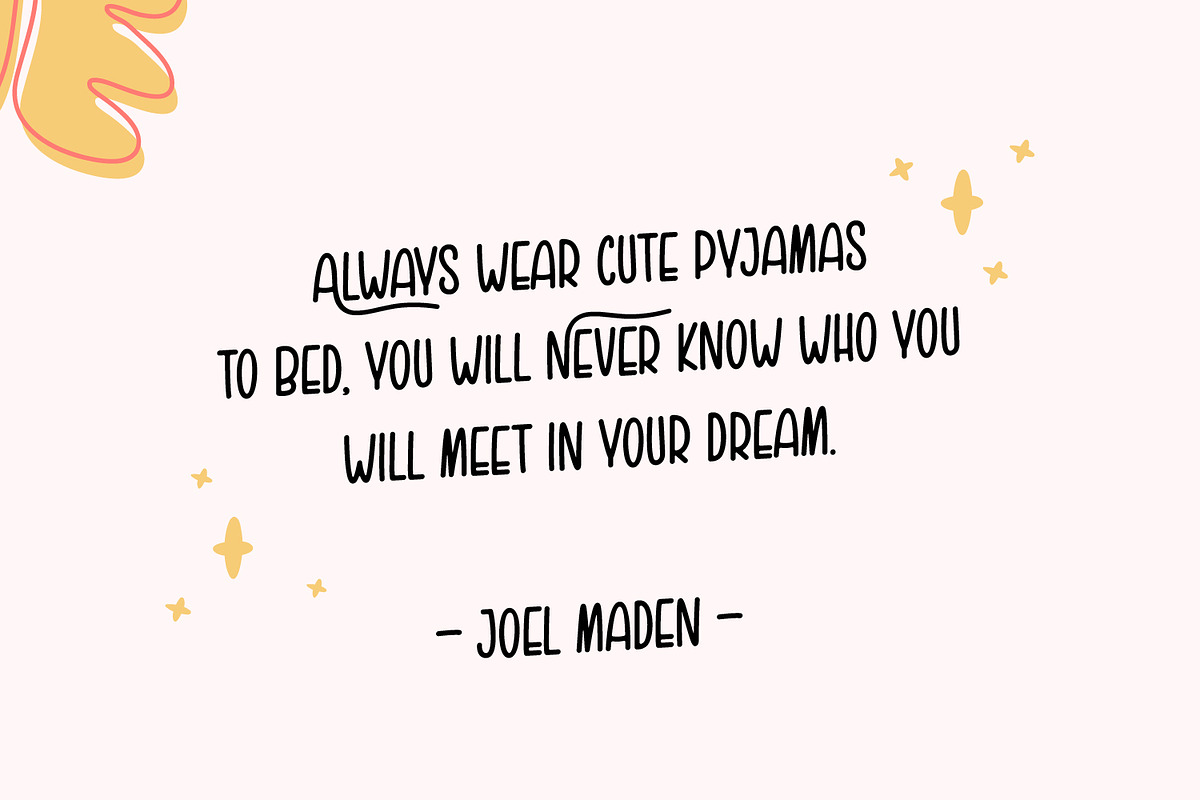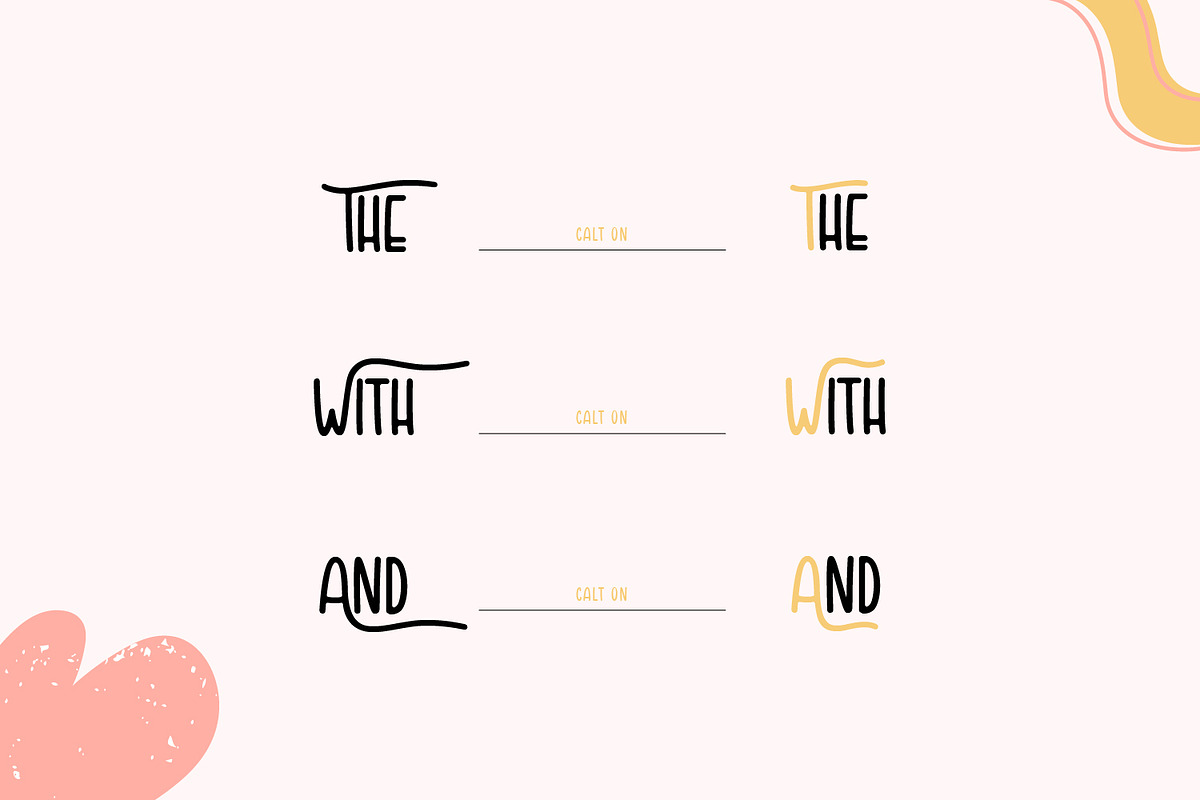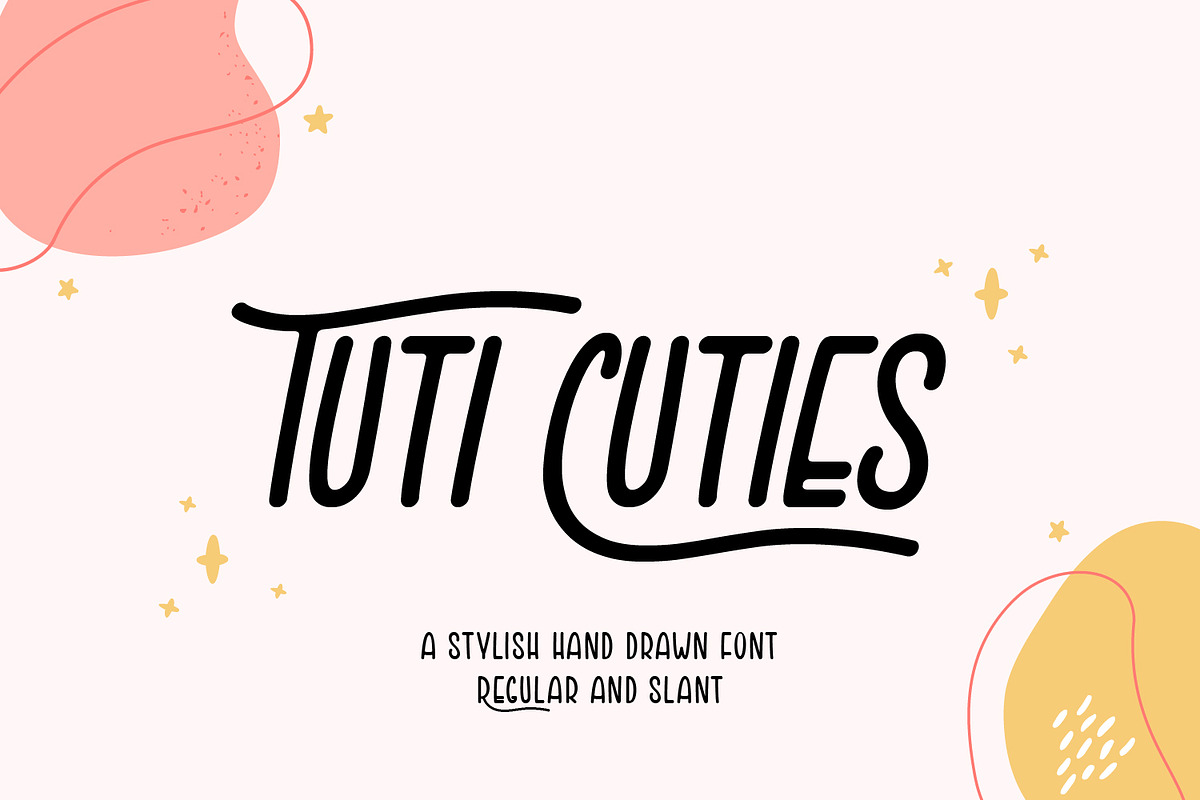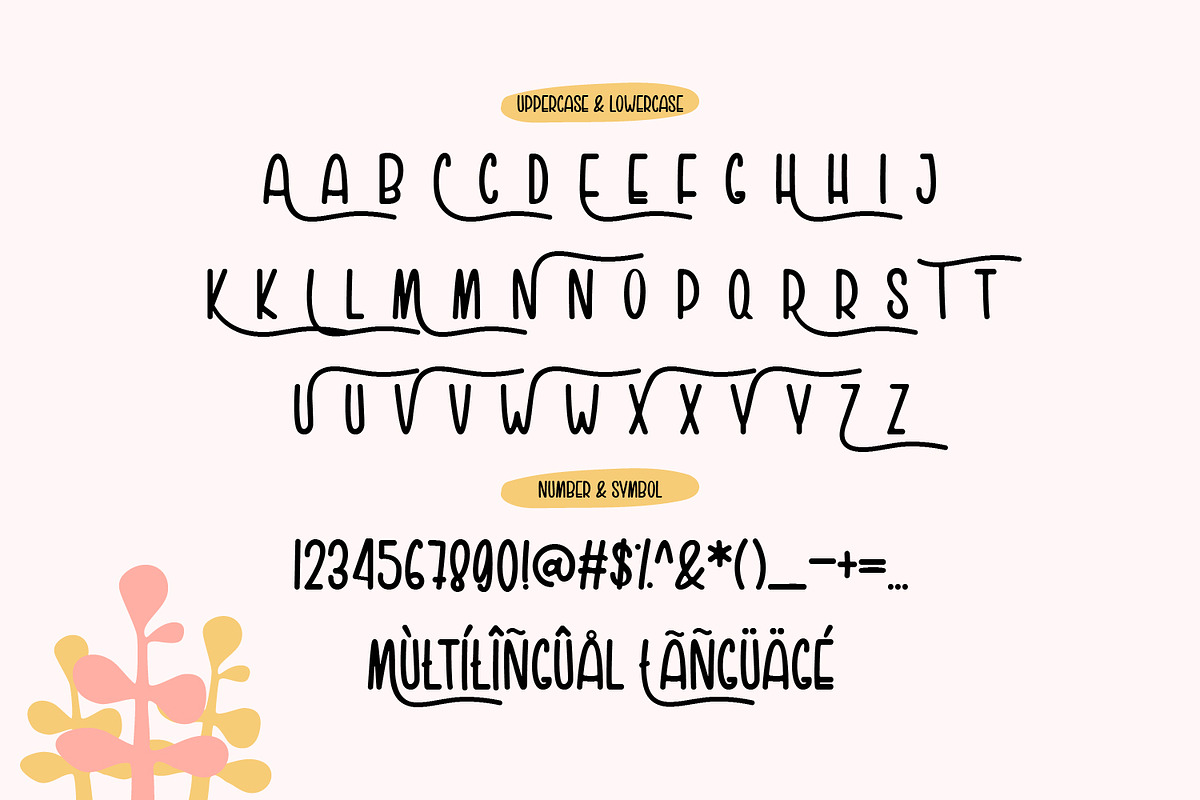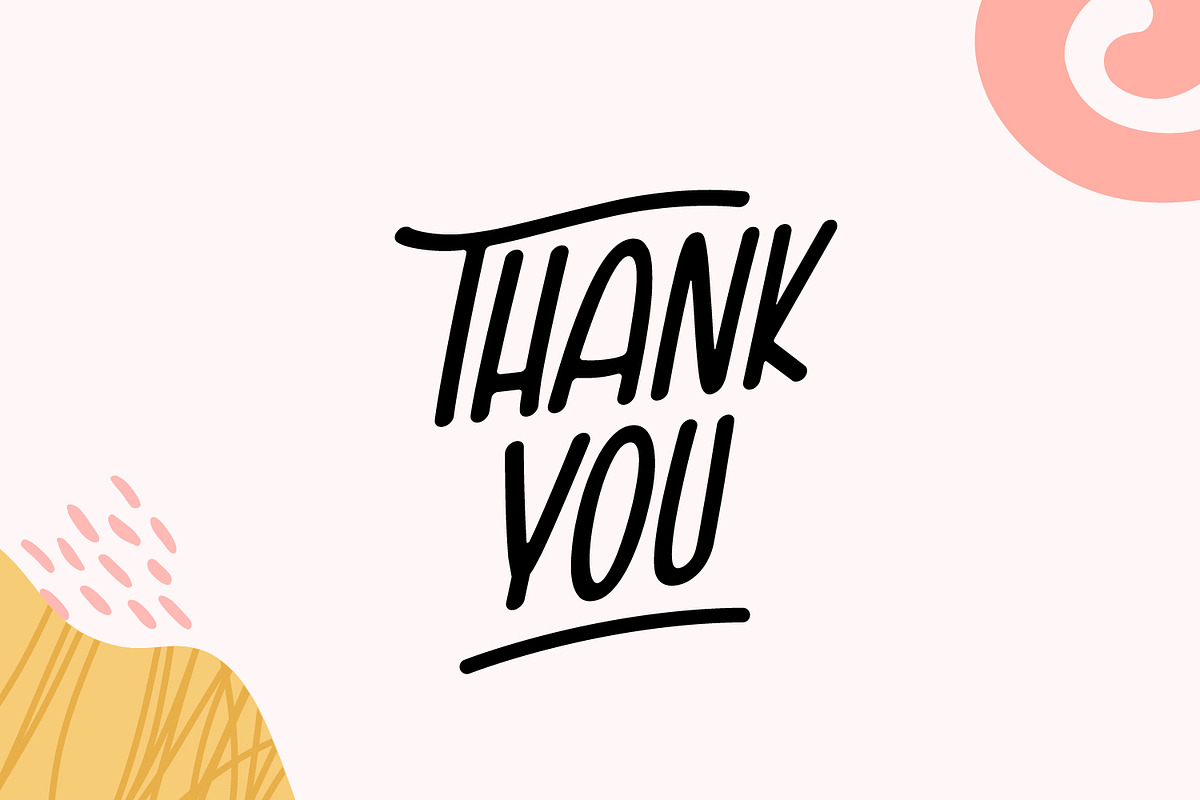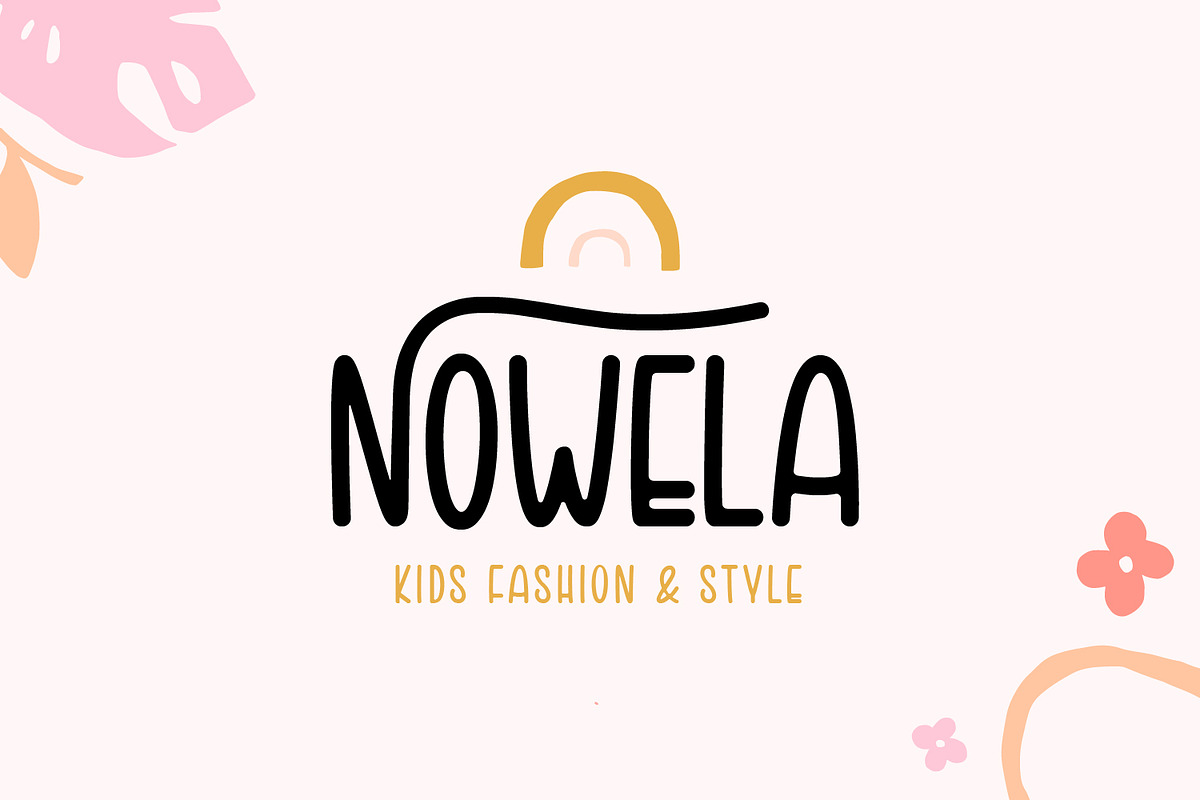
Tuti Cuties
Hello... this is Tuti Cuties, a stylish hand drawn font family. Cherries have 2 styles: regular and slanted Tuti Cuties included with some alternate character to make your design awesome. Tuti Cuties is fun and very suitable for cute or girly design needs such as cover design, typography, sticker, greetings card, logo, merchandise and many more. Tuti Cuties also easy for read and you can use it for quote or caption. Add this beautiful handwritten font to each of your creative ideas and notice how it makes them stand out!